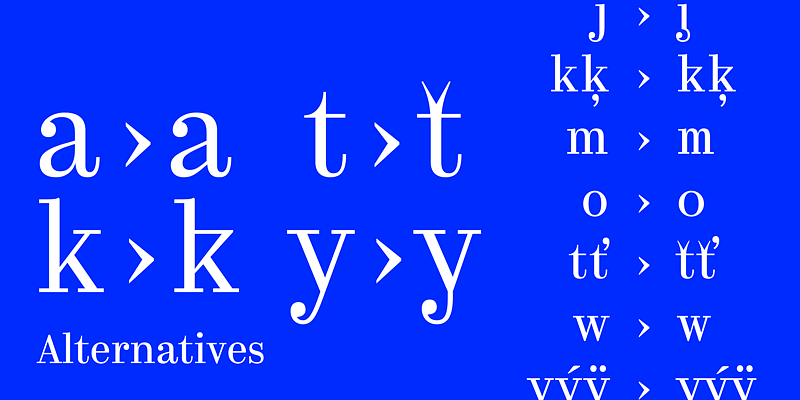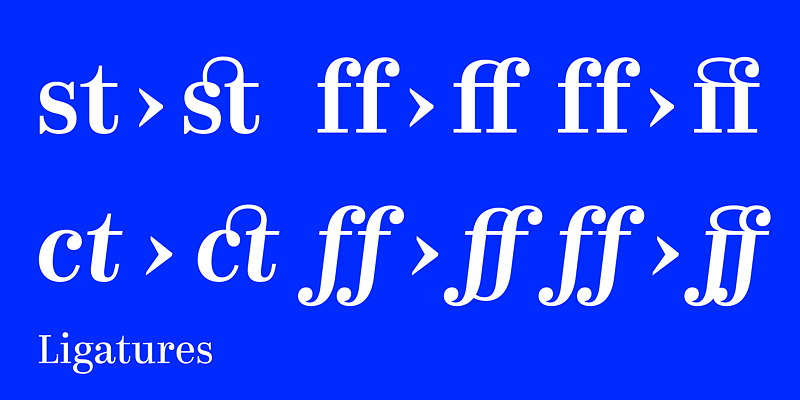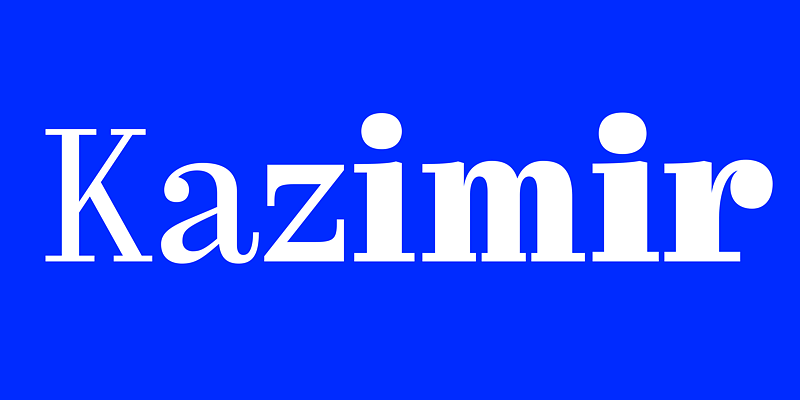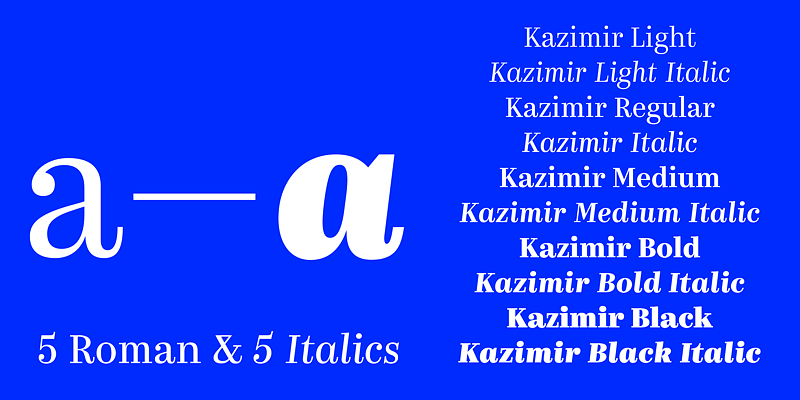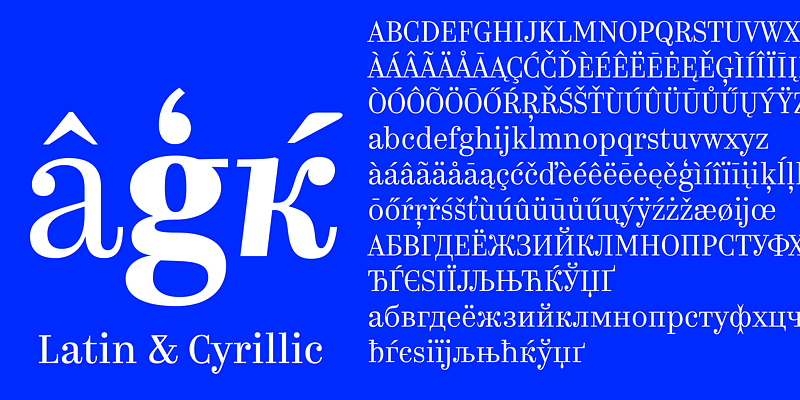
Kazimir is a Modern serif style typeface with five weights, from light to bold, with matched italics. The face has slightly narrowed proportions, long extenders and dynamic strokes reminiscent of the rhythms of transitional serifs. Kazimir is a reworking of book typography of the late 19th and early 20th centuries and specifically of the typeface used in the book, History of Russian Literature, by P. N. Polevoy, published by A. F. Marks in 1900. Kazimir blends various features of pre-revolutionary Russian typography with contemporary ideas of fashion, form and harmony.
It also contains two stylistic sets, one default and one alternate, called Regular and Irregular, respectively. The latter set offers characters in bizarre shapes that are difficult to imagine as a text face but that works well in large sizes.
Released in early 2015, Kazimir was later extended with it’s text version Kazimir Text.
CSTM Fonts
Ilya Ruderman and Yury Ostromentsky, founders of CSTM Fonts (2014) and font distributor type.today (2016) are both graphic and type designers.
They graduated from Moscow State University of Print (Graphic Design Department), where they took Alexander Tarbeev’s classes. Later Ilya Ruderman graduated from Type & Media (Royal Academy of Art), the Hague, the Netherlands. After graduation he was a tutor of Type&Typography course at British Higher School of Art and Design, Moscow (2008-2015), and an art-director of information agency RIA Novosti. He designed Cyrillic versions of typefaces such as Lava, Graphik, Neutraface and others, for Typotheque, Commercial Type, Typonine and House Industries. He is an author of: Permian typeface, Big City Grotesque and several other corporate typefaces.
Before 2013 Yury Ostromentsky worked mostly as an editorial designer and art-director of BigCity Magazine, where he used his personal lettering that was the base of the Pilar typeface. He is an author of several book series designs and logotypes.
Both typefaces of Ilya Ruderman and Yury Ostromentsky were the winners of such type design competitions as Modern Cyrillic 2009, Modern Cyrillic 2014, Granshan 2011, European Design Award 2012. Kazimir typeface and Tele2 Typefamily, the CSTM Fonts’s latest releases, were among the winners of Granshan 2015.